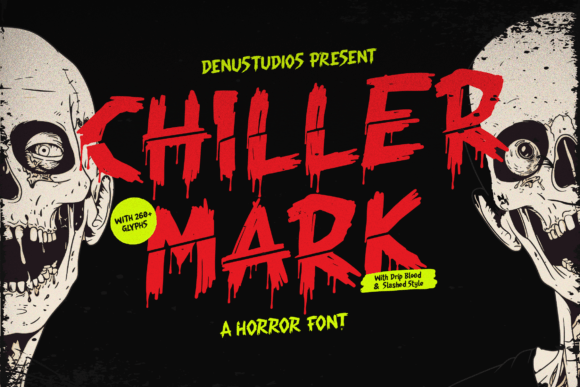
Unleash the Fear Factor: Chiller Mark Font
You’ve spent hours agonizing over the perfect font to match the eerie atmosphere of your horror-themed project, but nothing seems to scream ‘terror’ like the real deal. We’ve all been there – staring at a blank screen, desperate for that one font that will send shivers down your audience’s spines. That’s where Chiller Mark Font comes in, a bone-chilling horror display font designed to make your blood run cold.
With its slashed, drippy blood style and an impressive 260+ glyphs, Chiller Mark Font is the ultimate tool for designers looking to add a spine-tingling twist to their Halloween party flyers, haunted house posters, scary movie titles, and more. This font is not just a design element – it’s an experience that will leave your audience shivering with fear.
Key Features of Chiller Mark Font
- Font Style: A distressed, horror-themed font with a unique, eerie feel.
- Character Set: Includes a wide range of characters, including uppercase and lowercase letters, numbers, and punctuation marks.
- Unique Characteristics: Features a distressed, hand-painted look with subtle texture and imperfections, adding to its horror theme.
- Font Variations: Available in 6 different font weights, allowing designers to choose the perfect level of distress and intensity for their project.
Chiller Mark Font Review
I recently had the chance to work with Chiller Mark Font, and I must say it’s a unique addition to any design project. ✨ One of the things that stands out is its playful, handwritten feel, which adds a touch of personality to any text. The font is perfect for creating attention-grabbing headlines or titles that need a bit of flair.
Another advantage of Chiller Mark Font is its versatility. It works well in both digital and print formats, making it a great choice for designers who need a font that can adapt to different mediums. ✨ The font also comes in a range of weights, from light to bold, allowing designers to experiment with different styles and effects.
- ⚠️ Limited character set: The font’s character set is limited, which may make it difficult to use in situations where a wide range of characters is required.
- ⚠️ Limited language support: The font may not support certain languages or character sets, which could be a limitation for designers working on projects that require language-specific fonts.
Overall, I think Chiller Mark Font is a great addition to any design toolkit. While it has its limitations, its unique style and versatility make it a great choice for designers looking to add a bit of personality to their work.
The Chiller Mark font is perfect for designs that need a bold, edgy look. Some common use cases include:
- Graphic novels and comic books
- Rock music and punk-inspired designs
- Edgy fashion and streetwear brands
- Industrial and tech-inspired designs
Remember to use the Chiller Mark font in moderation to avoid overwhelming your design. Experiment with different font sizes and styles to find the perfect balance.
Alternatives to Chiller Mark Font for Designers
Bebas Neue is a modern sans-serif font designed for use in digital media. It’s ideal for headings and titles, particularly for those who want a clean and minimalist look. Bebas Neue is more versatile than Chiller Mark Font, as it comes in a wide range of weights and styles, making it suitable for various design projects. However, it lacks the bold, distressed feel of Chiller Mark Font.
Rock Salt is a distressed sans-serif font with a rough, worn texture. It’s perfect for designs that need a vintage or retro feel. While Rock Salt shares some similarities with Chiller Mark Font in terms of its distressed appearance, it has a more subtle and elegant look, making it suitable for designs that require a touch of sophistication.